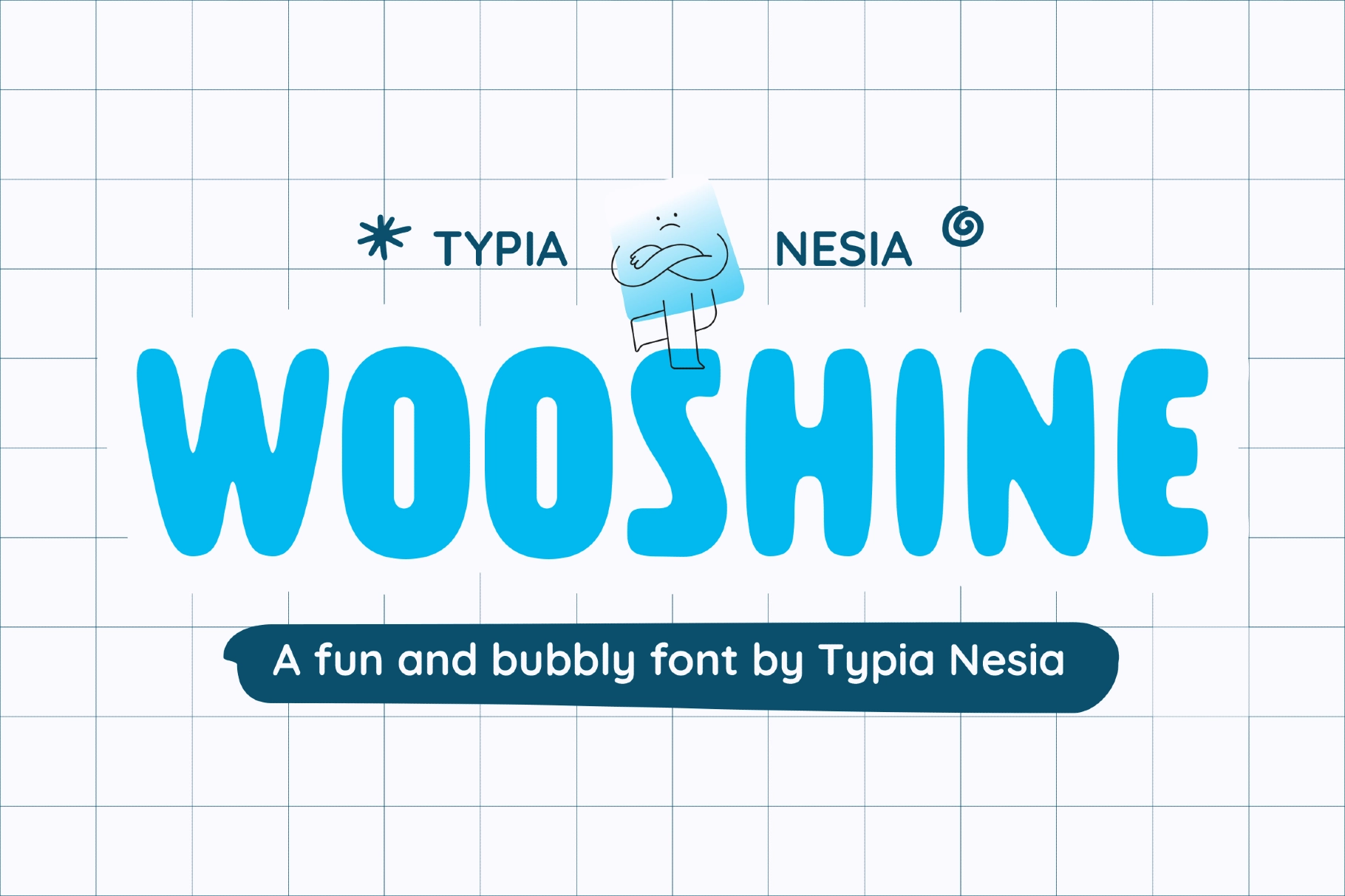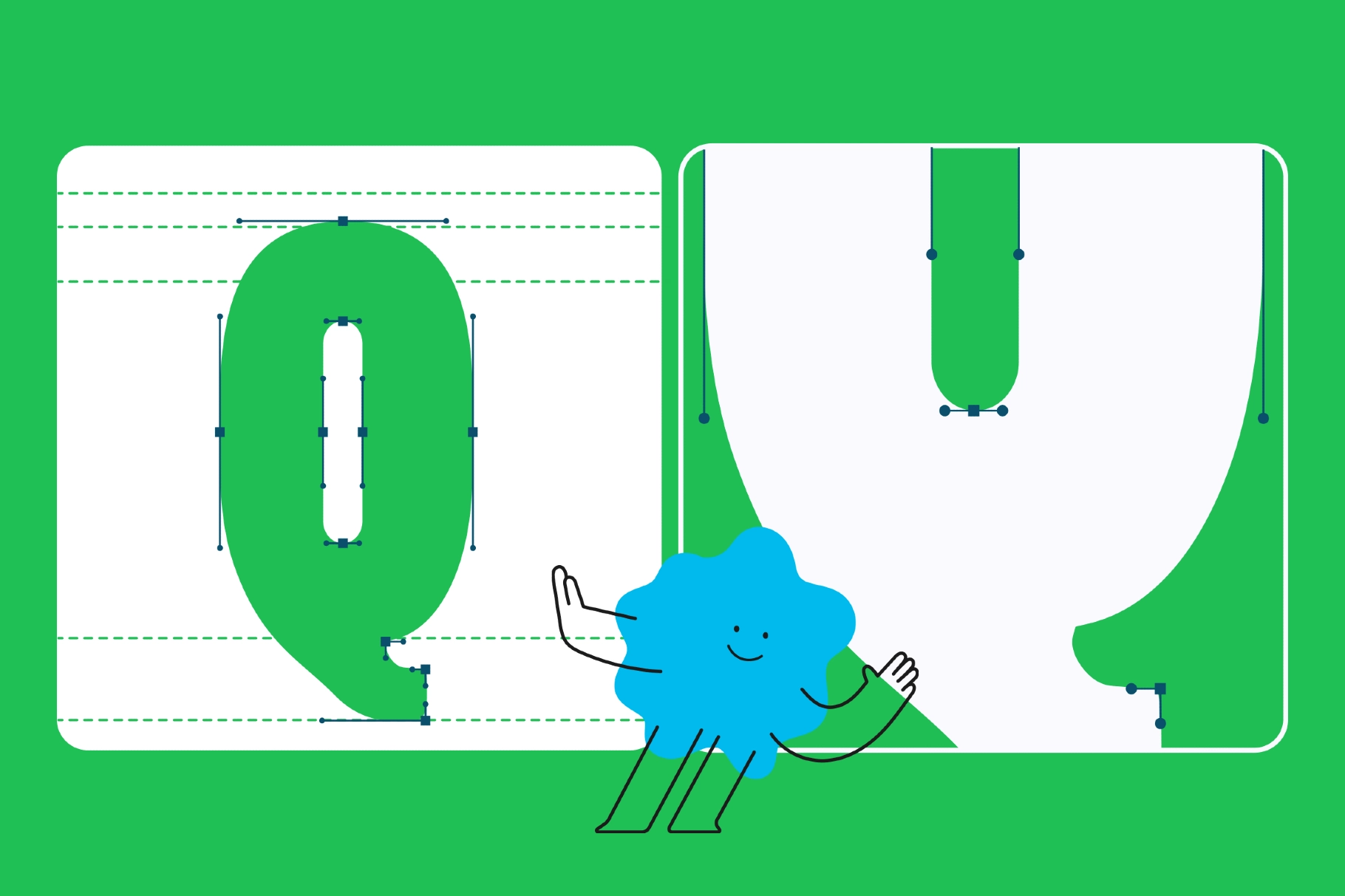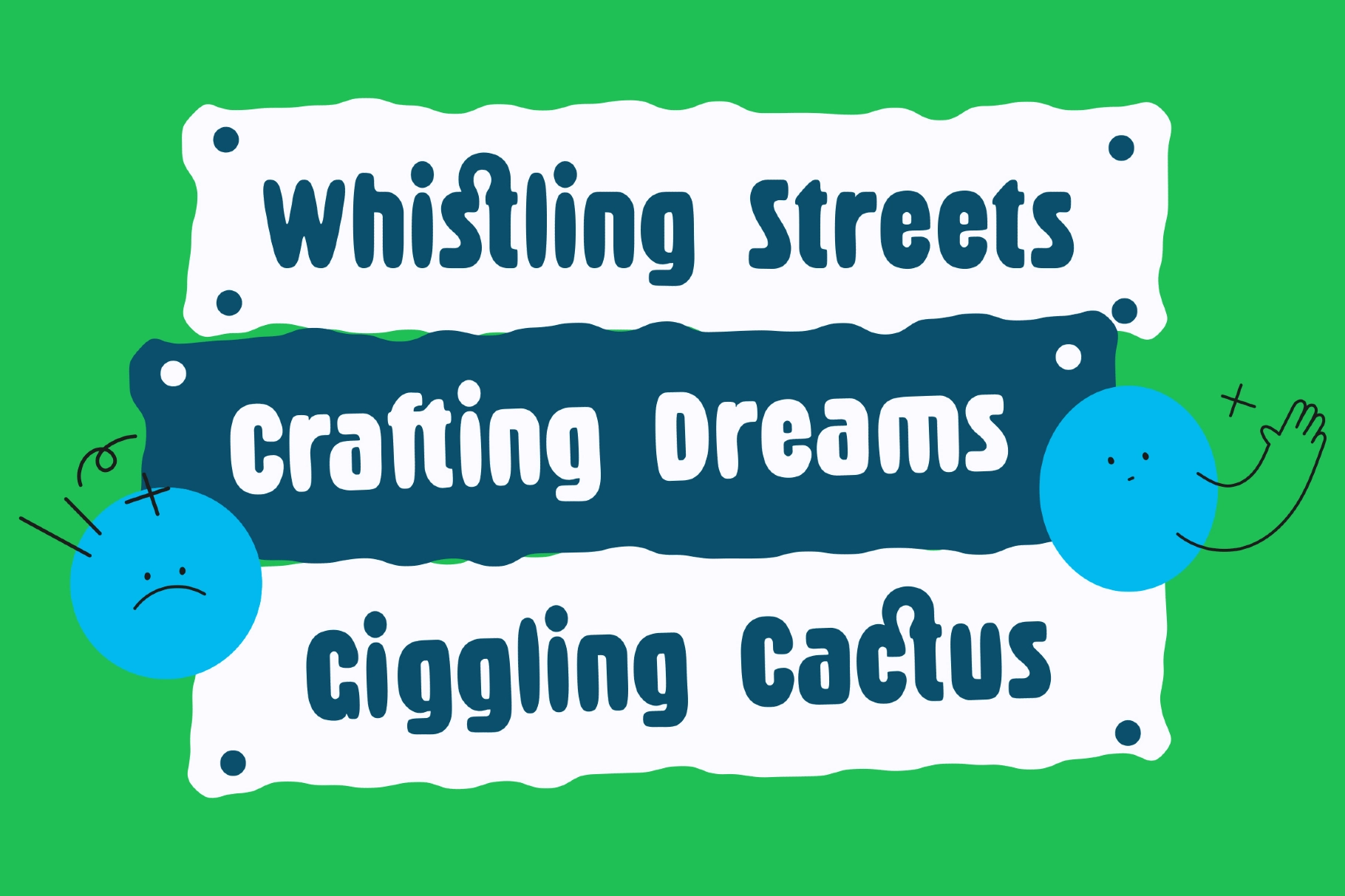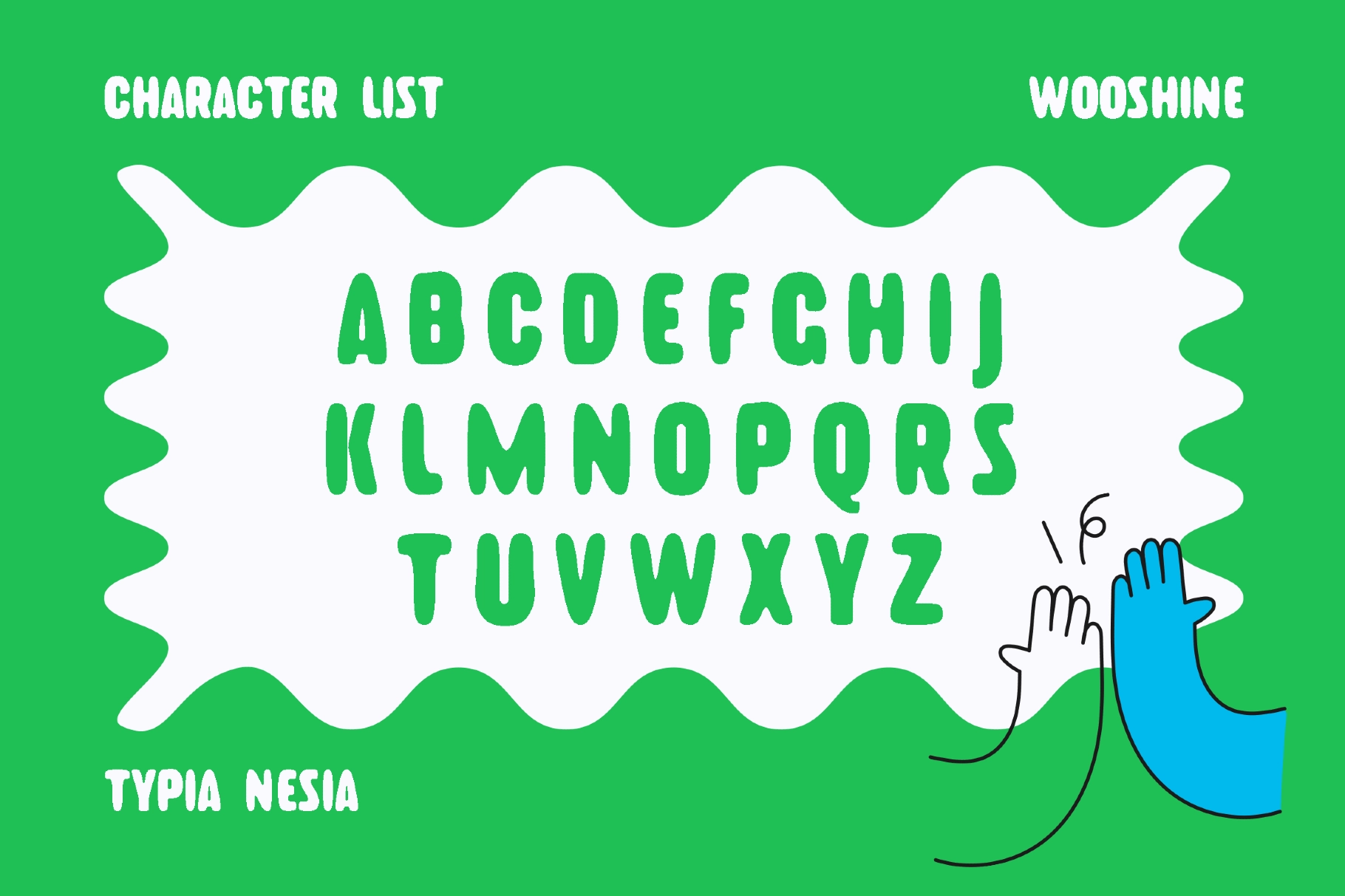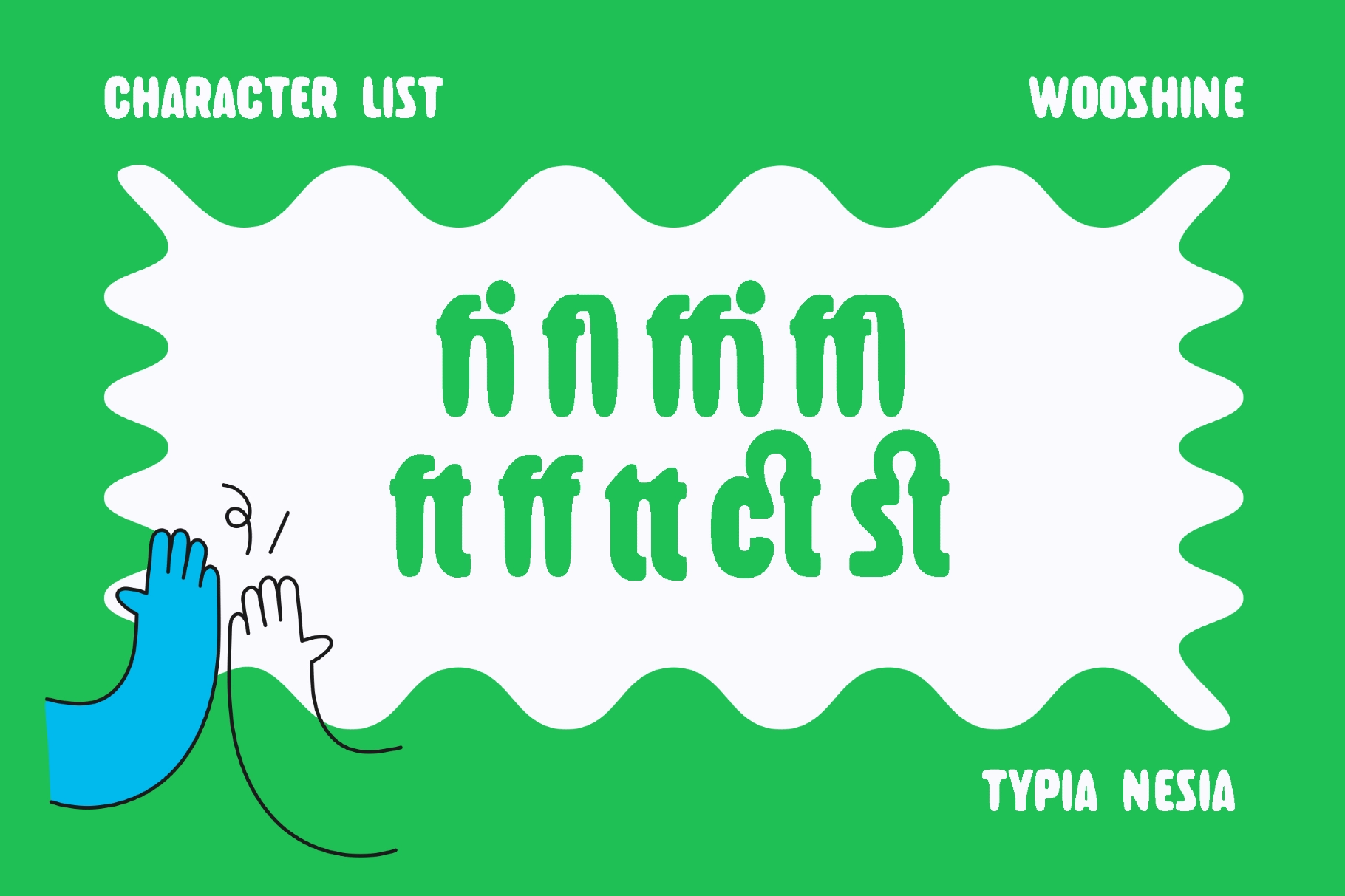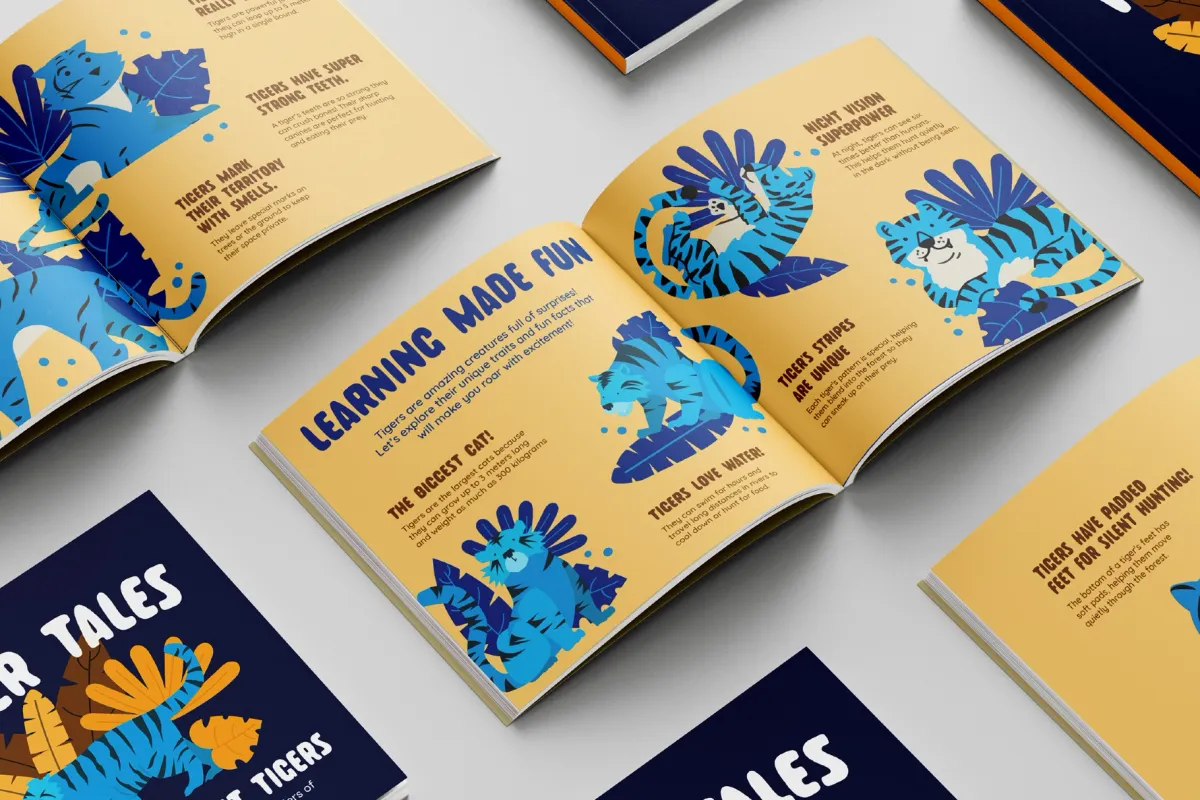
Wooshine - Fun & Bubble Sans Font
Wooshine
Wooshine - Fun & Bubble Sans Font is a playful and rounded typeface that brings joy, color, and energy to any design. With its soft, bubbly shapes and friendly curves, it instantly creates a cheerful atmosphere while remaining clean and versatile.
Perfect for children’s books, party invitations, packaging, branding, posters, and social media graphics, Wooshine adds a lively and whimsical charm to every project. Whether you’re designing for kids or creating fun, lighthearted visuals, this font delivers personality, positivity, and creativity in every letter.
Make your designs sparkle with happiness using Wooshine, the ultimate bubble-style sans serif font for modern, playful branding.